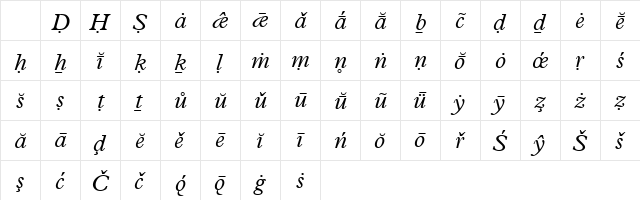
Design Context for Plantin for oup Alt
Plantin for oup Alt is a composed and adaptable typeface that performs quietly and consistently across a wide range of design contexts. The slanted form adds forward momentum and visual energy.
Pro Tip: Use Plantin for oup Alt for emphasis, pull quotes, and subheadings where its slanted energy can add rhythm to the layout.